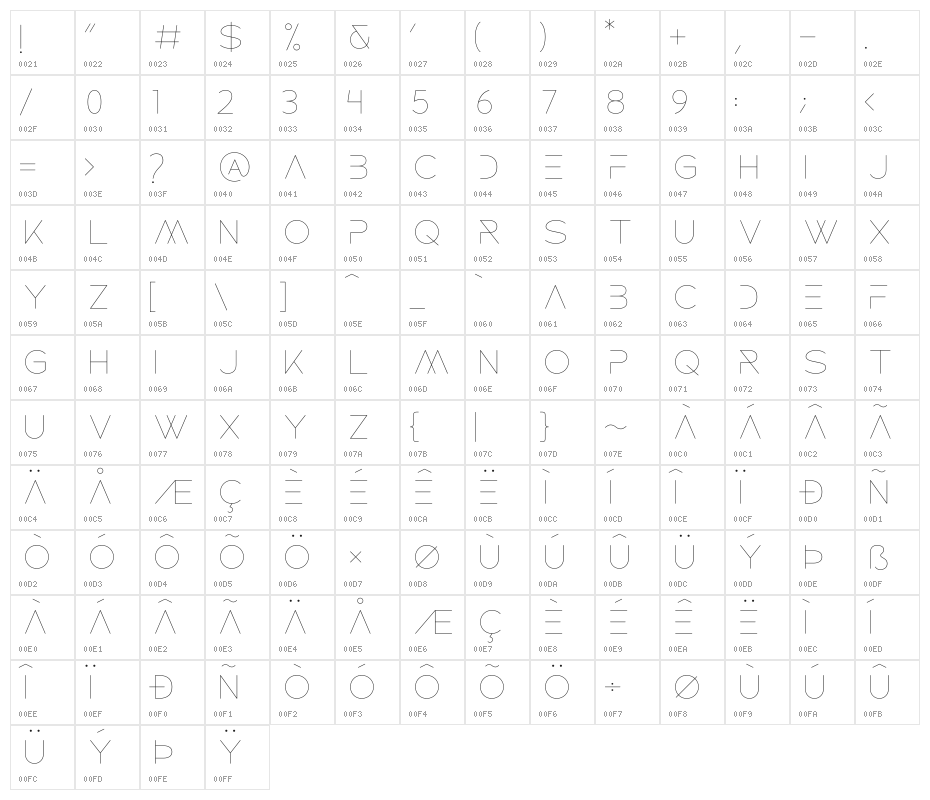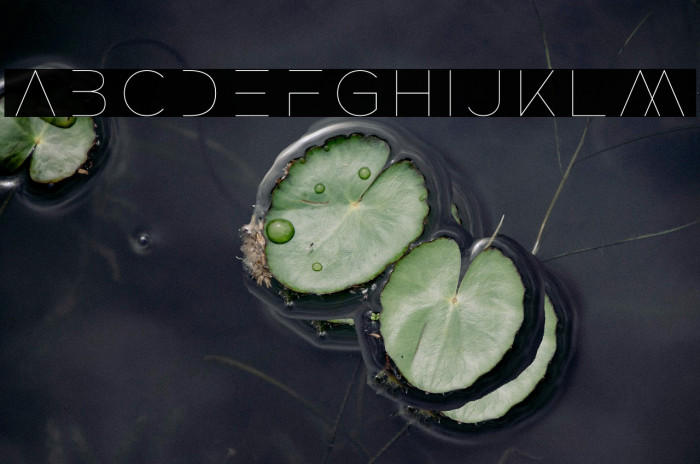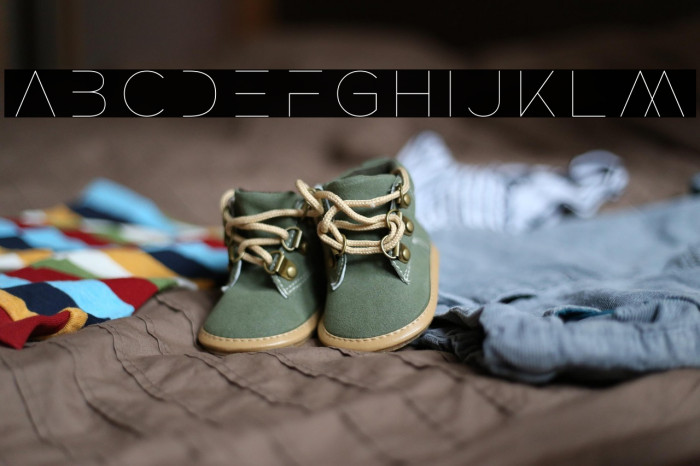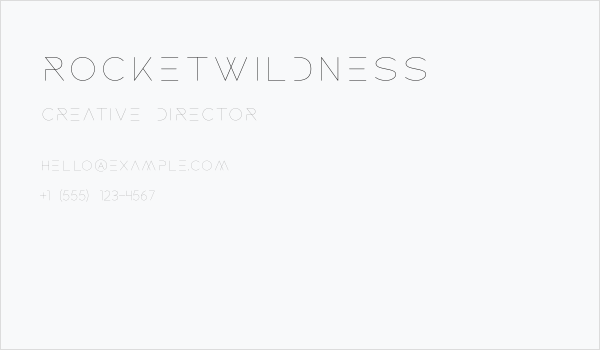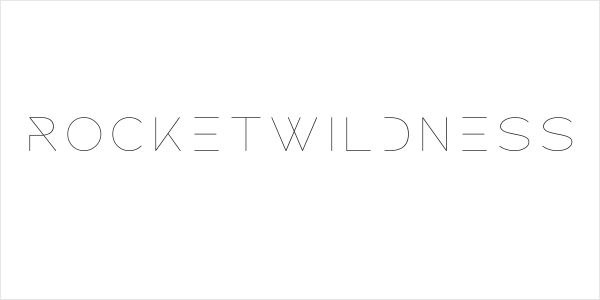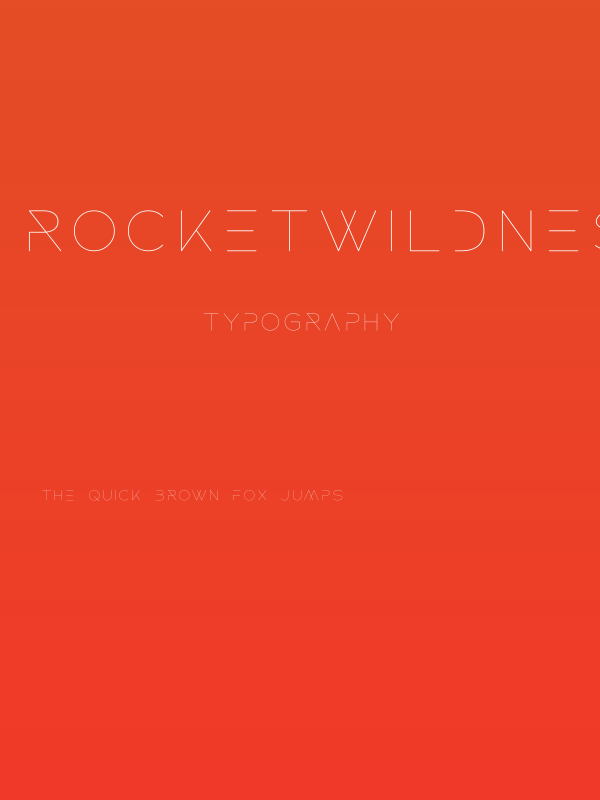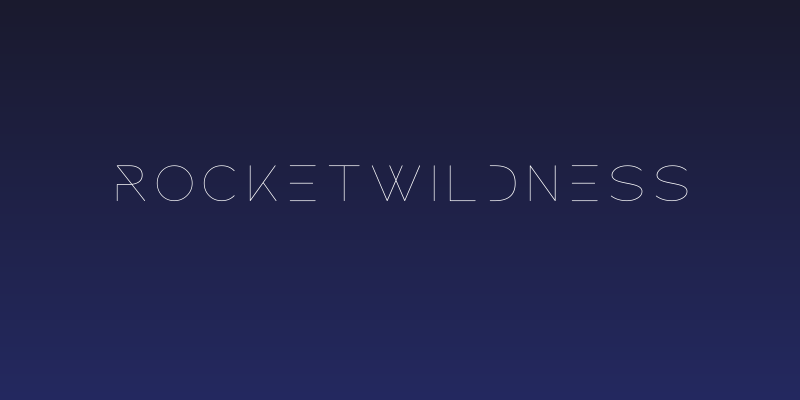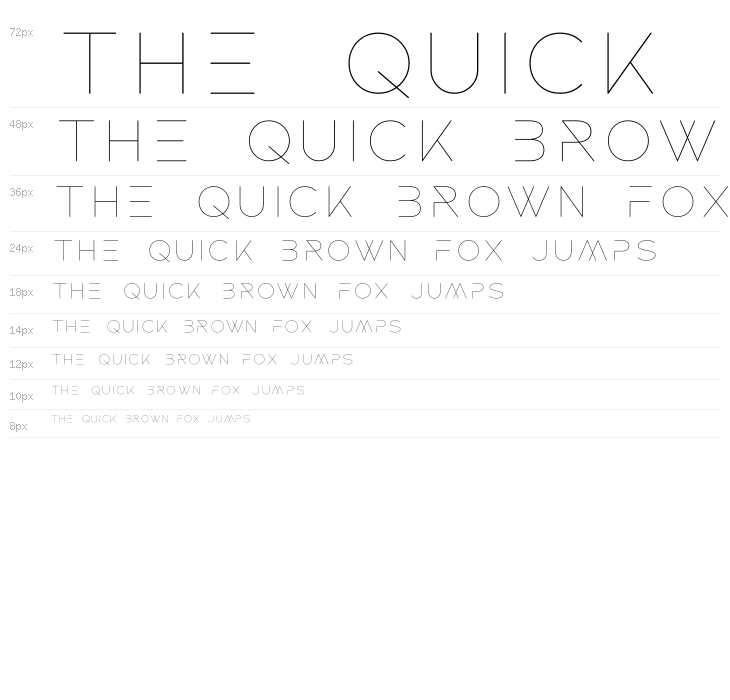
ROCKETWILDNESS Font
ROCKETWILDNESS Description
This font features a sleek, modern design with a geometric and minimalist aesthetic. The characters are composed of thin, uniform lines that create a sense of elegance and sophistication. The uppercase letters are particularly striking, with sharp angles and clean lines that convey a futuristic feel. The numerals and special characters maintain the same thin line weight, ensuring consistency across all elements. This font's simplicity and clarity make it highly legible, even at smaller sizes, while its unique style adds a touch of modernity to any design.
| Proposed Projects | Ideal for tech branding, modern websites, minimalist posters, and futuristic designs. |